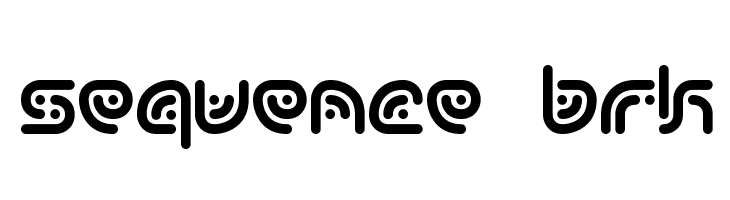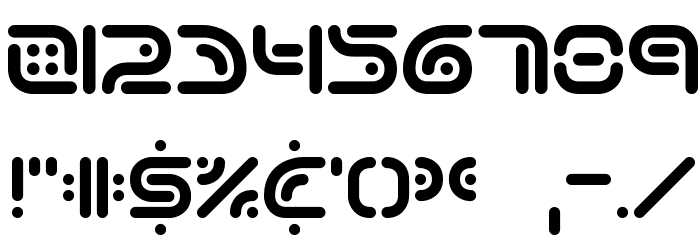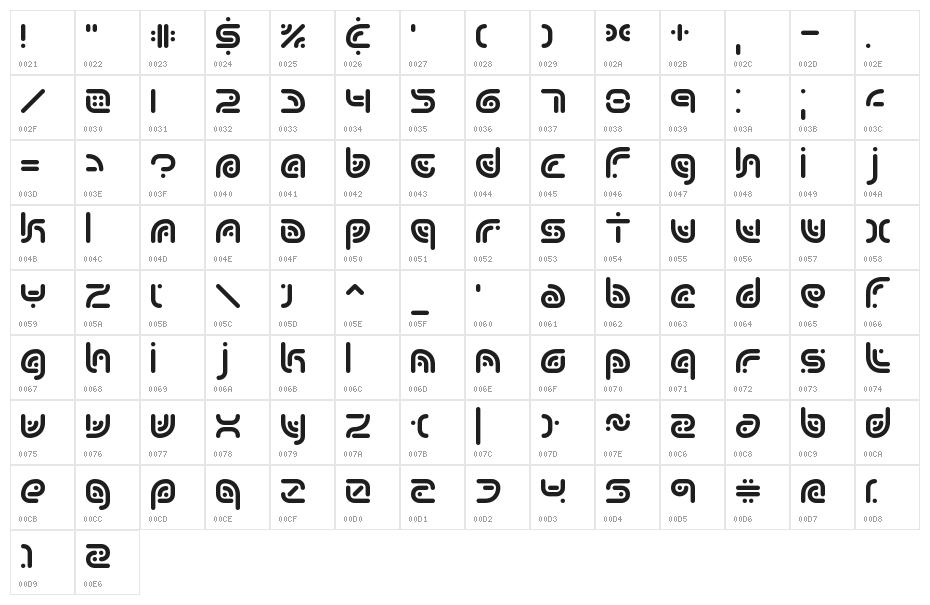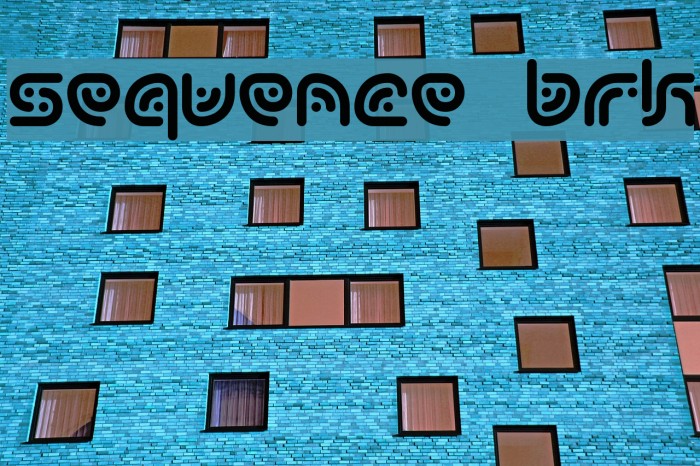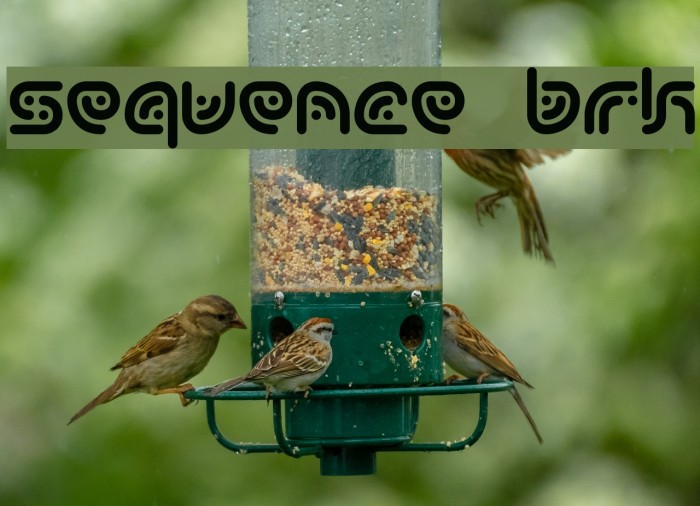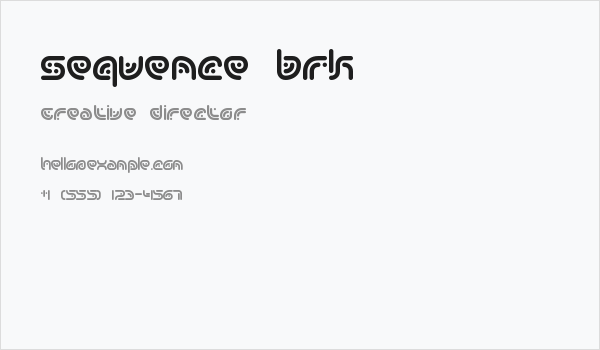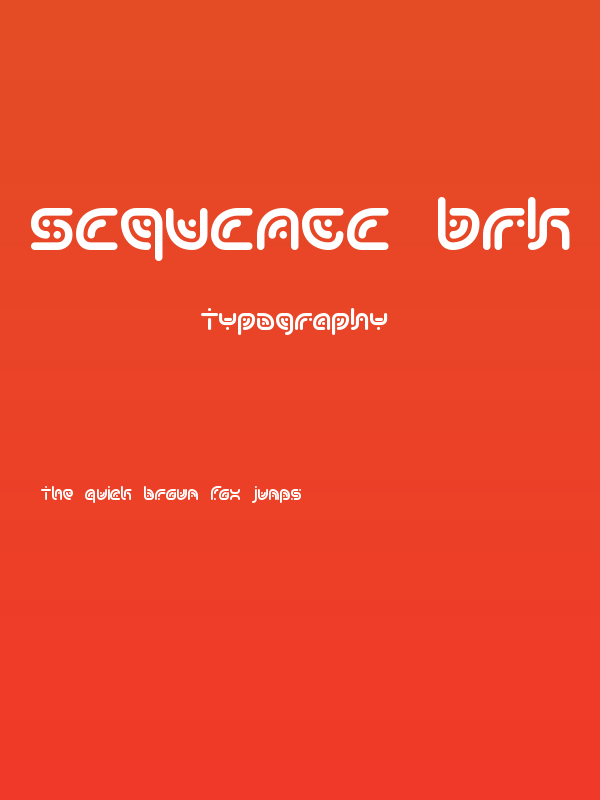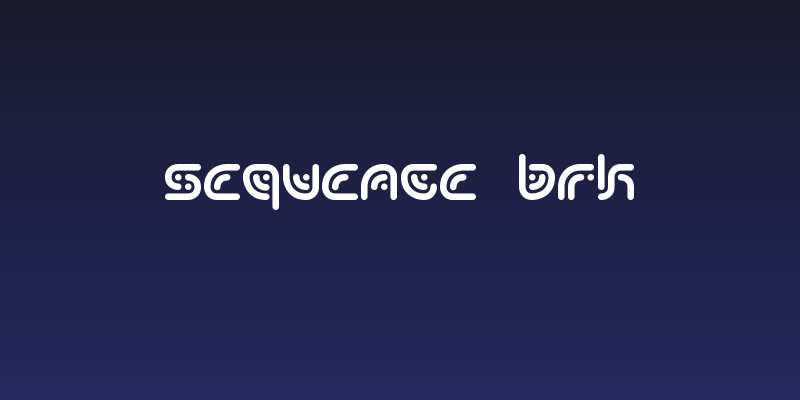
Sequence BRK Font
Sequence BRK Description
This font features a futuristic and geometric design with rounded edges and a distinct dot element incorporated into each character. The letters are bold and have a uniform thickness, creating a cohesive and modern appearance. The unique styling of each character gives it a digital and tech-inspired look, making it stand out in any design. The numbers and special characters follow the same design principles, ensuring consistency across all elements. This font is ideal for projects that require a contemporary and innovative aesthetic.
| Use Case | Logos, Headlines, Digital Interfaces |
| Proposed Projects | Ideal for tech branding, digital interfaces, modern posters, and futuristic-themed designs. |